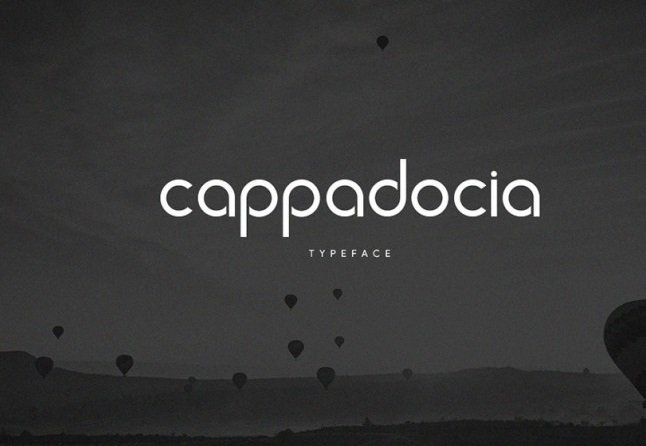
Cappadocia Font
Cappadocia Sans Serif Font a sans display typeface with clean, rounded corners to instantly give designs that minimalist feel. You can quickly go from vintage to sci-fi in minutes. This minimal typeface that look amazing on body copy, logos, posters, headlines, books and magazine covers, brochures, as well as branding projects.